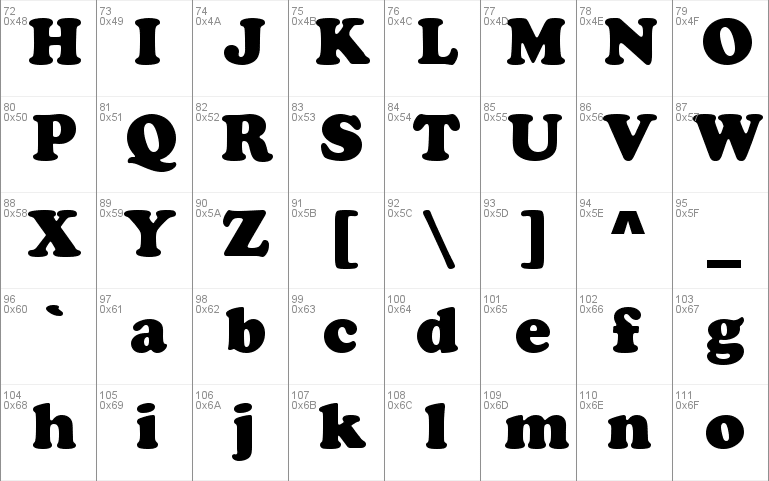
Popular since it was designed in 1921, Cooper Black has inspired many imitations. However, although many type designers and manufacturers have tried to market similar designs, none has outdone Cooper Black. The blunt and rounded forms, blurred serifs, and very small counters make this a warm and friendly face. Its most distinctive features are the backward tilt of the counters on the ‘O’ and ‘Q’, as well as the elliptical dots in the ‘i’ and ‘j’. More than anything else, its blackness draws attention to Cooper Black. The lack of contrast in the design calls for using this font on a clearly divergent background.